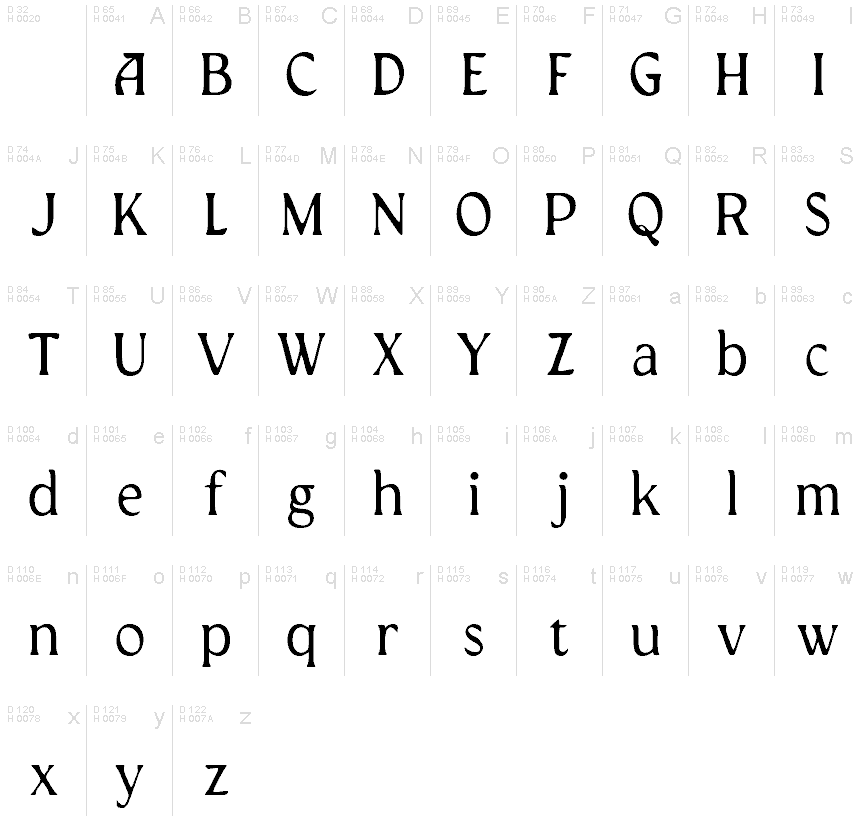
CSAmandaDrawn-Regular Demo
CS Amanda Drawn font by Craft Supply Co. is part of the CS Amanda serif family and it displays elegant letters with classic sophisticated elements. Gentle curves showcase a nostalgic design combined with a modern touch, one that can easily make any platform more engaging and inviting. A font that mixes feminine style with masculinity for unique projects where soft meets bold.